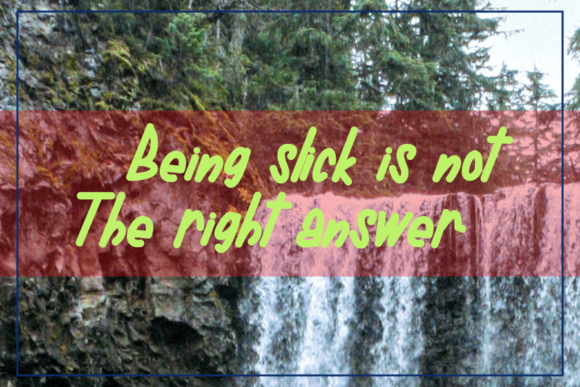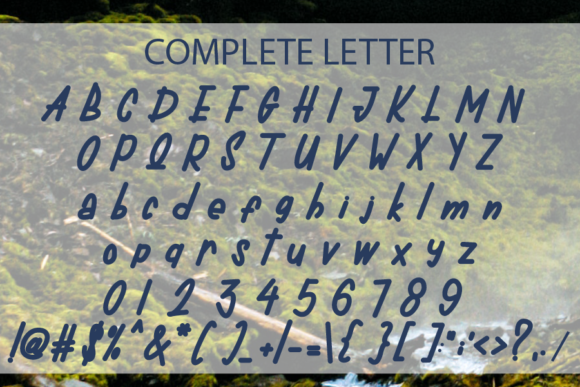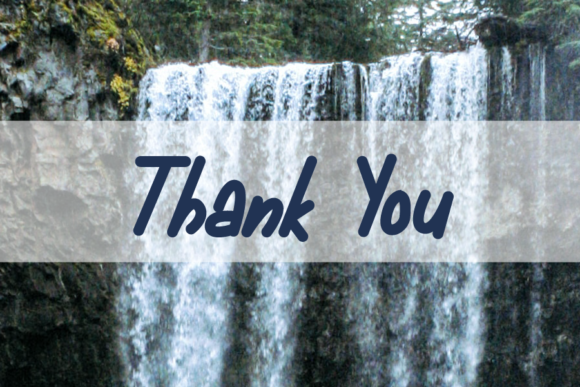
Introduction to Slick Font
Slick is a simple and classy display font.
Clean and neat, this font will complement any design that you wish to develop .